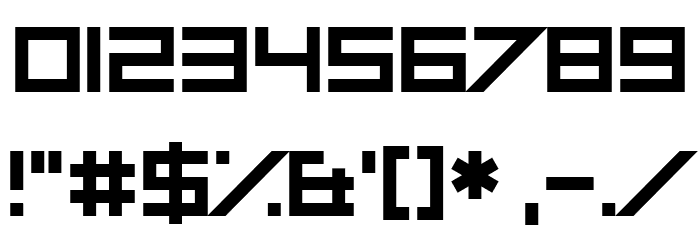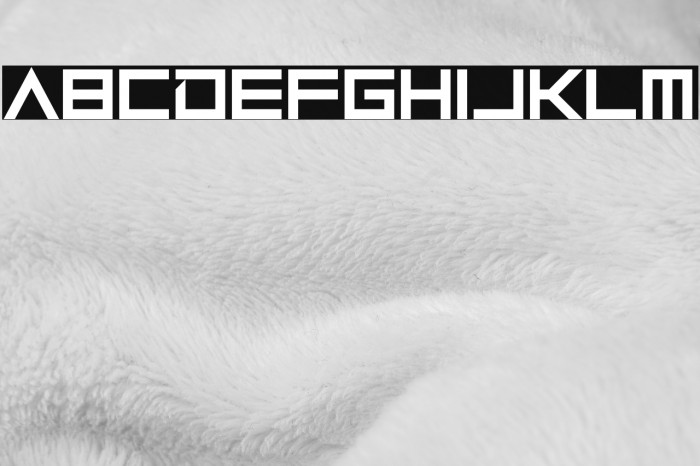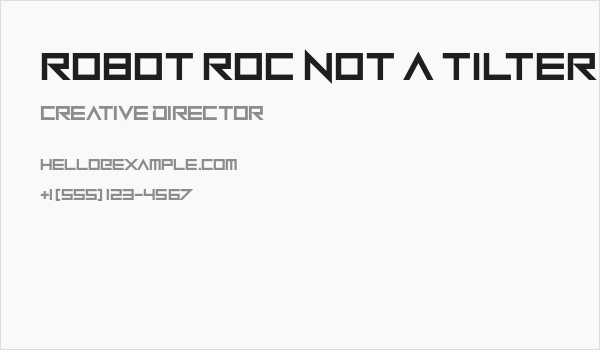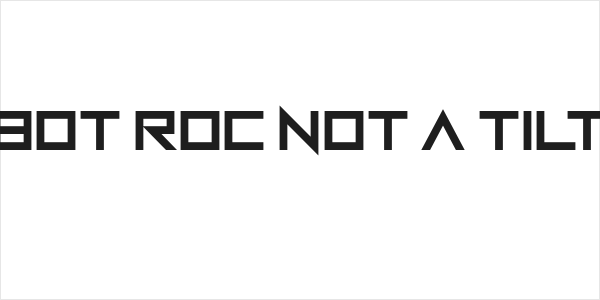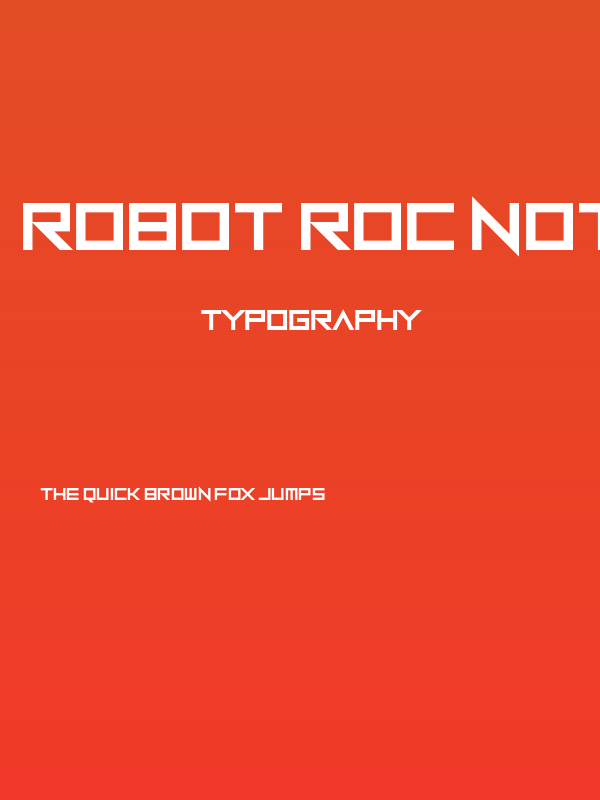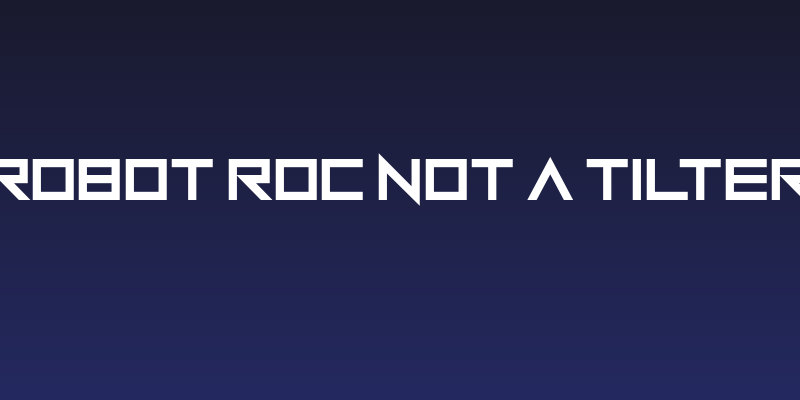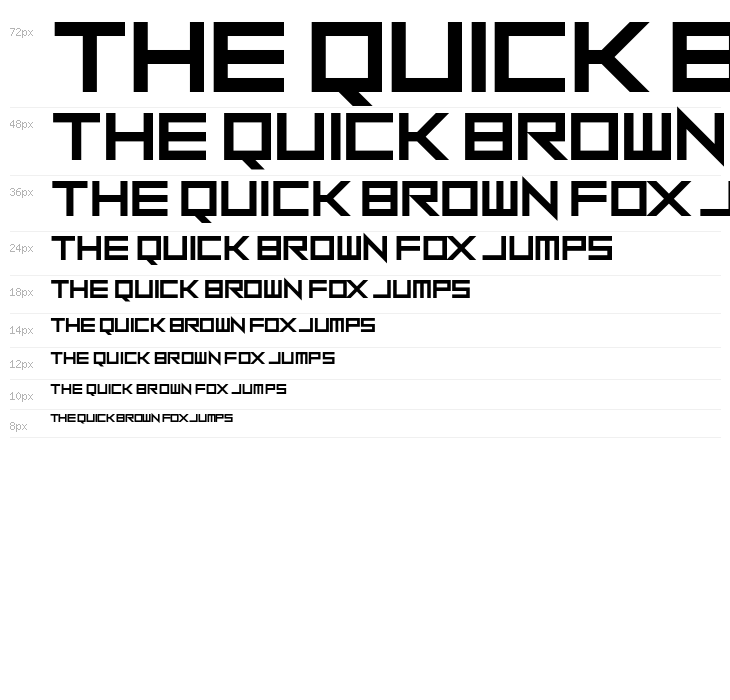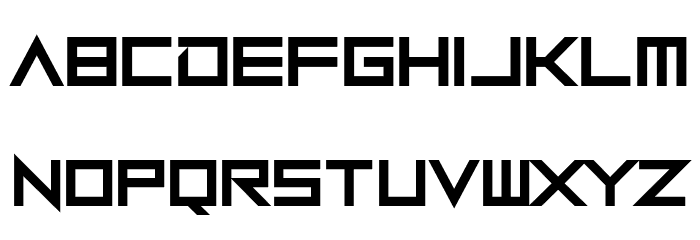
Robot Roc Not a Tilter Font
Robot Roc Not a Tilter Description
This font features a bold, geometric design with a futuristic aesthetic. The characters are constructed with sharp angles and straight lines, giving them a mechanical and robotic feel. The uppercase and lowercase letters maintain a consistent height, contributing to a uniform appearance. The numerals and special characters follow the same angular style, ensuring cohesion across all glyphs. The font's distinct style makes it ideal for projects that require a modern and tech-inspired look.